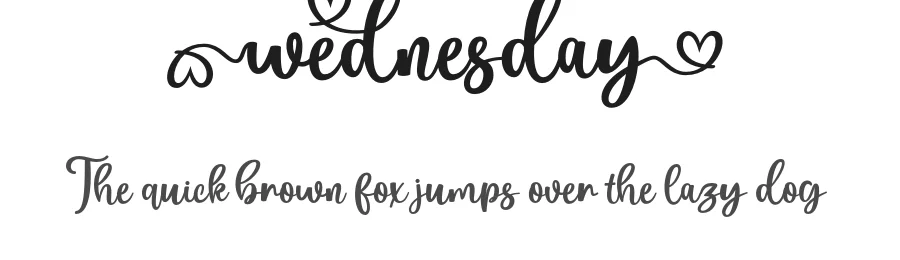
About Handbag Font
Handbag is a delicate, elegant and flowing handwritten font. It has beautiful and well balanced characters and as a result, it matches a wide pool of designs. Add it to your most creative ideas and notice how it makes them come alive!
Handbag is PUA encoded which means you can access all glyphs and swashes with ease!
Handbag Font is a script font that shines as a display or heading face. Pair it with a clean sans-serif or serif font for body text β the contrast creates a clear hierarchy while the two styles stay balanced and easy to read.